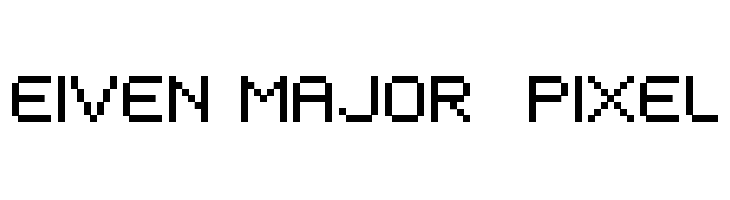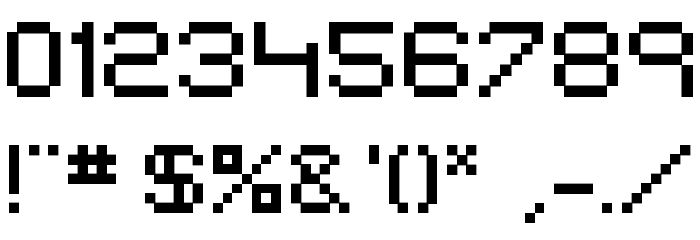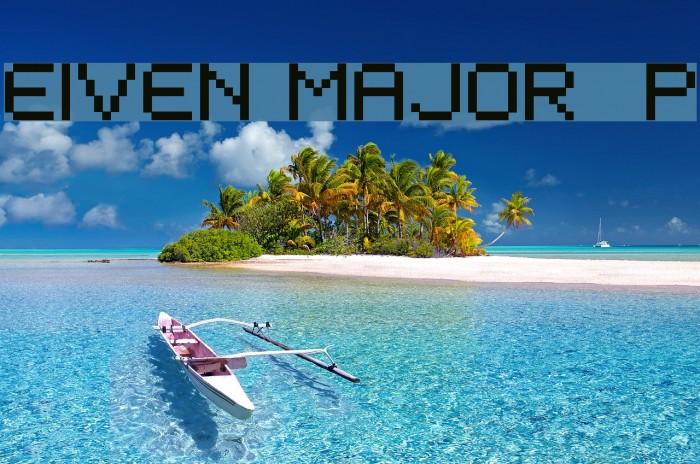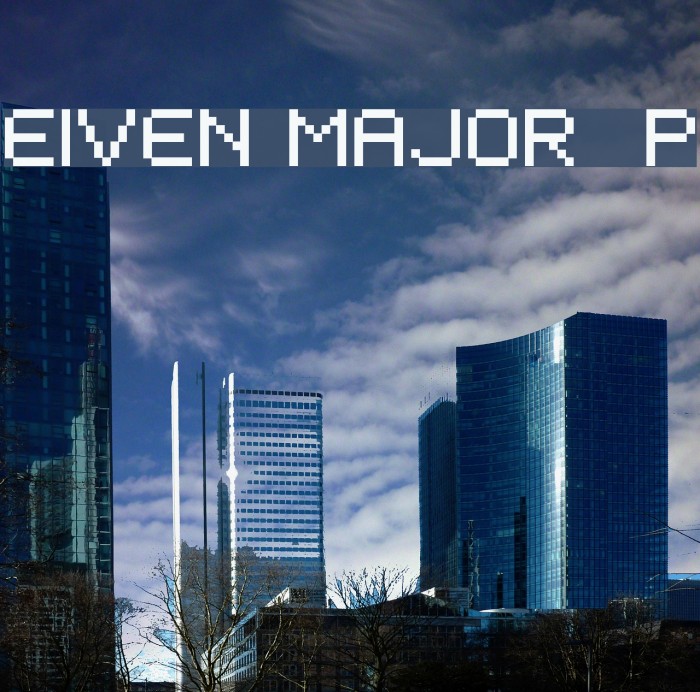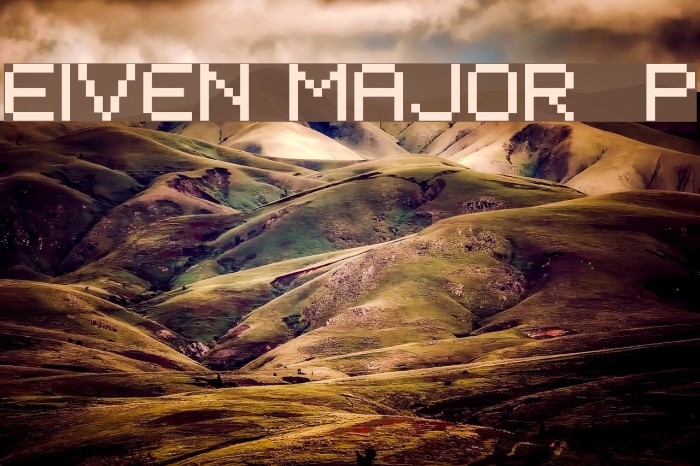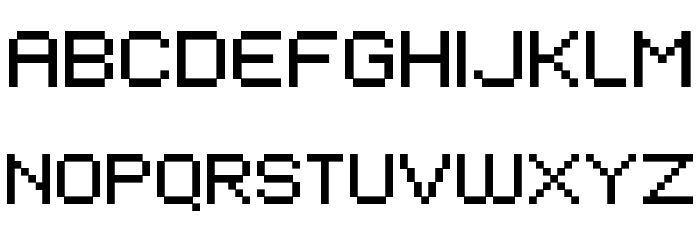
EIVEN MAJOR Pixel Font
EIVEN MAJOR Pixel Description
This font exhibits a distinct pixelated style, reminiscent of early digital displays and retro video games. Each character is constructed with a grid-like precision, giving it a blocky and geometric appearance. The uniformity in stroke width across all characters contributes to its cohesive and structured look. Despite its pixelated nature, the font maintains excellent legibility, making it suitable for various digital applications. The characters are evenly spaced, ensuring clarity and readability. This font's nostalgic charm and straightforward design make it a versatile choice for projects that aim to evoke a sense of classic digital aesthetics.
| Overall Style | Vintage |
| Use Case | Headlines, Logos, Digital displays |
| Proposed Projects | Ideal for retro video game graphics, digital art projects, tech-themed posters, and any design requiring a nostalgic digital aesthetic. |